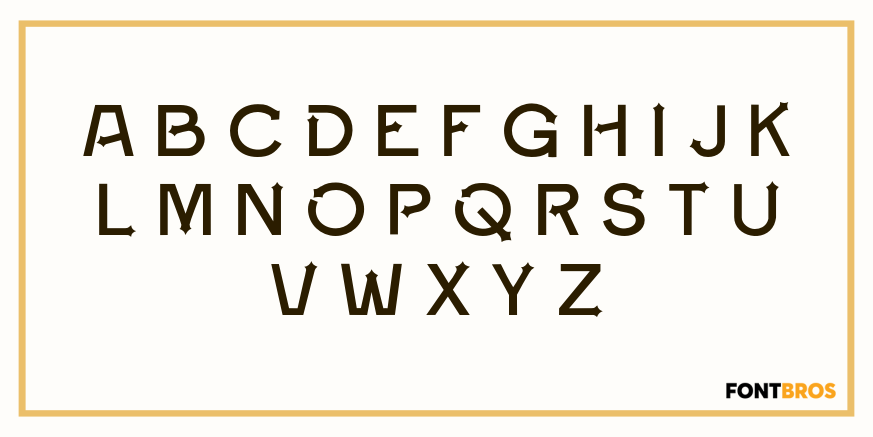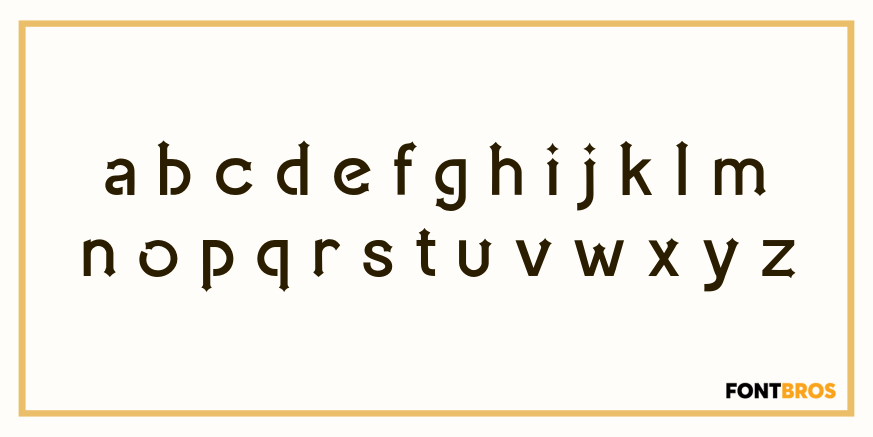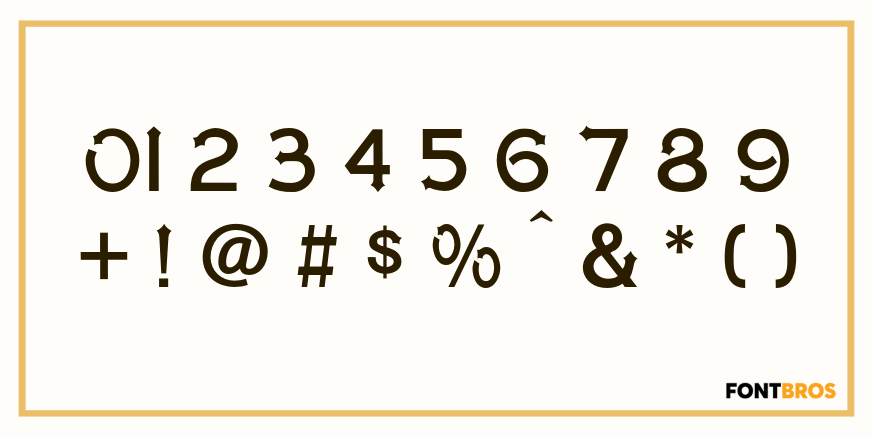
Spearhead
Font Family by Solotype
Once again we have added a lowercase to a caps-only type from late Victorian times.
We made quite a few changes from the original to make words flow better.